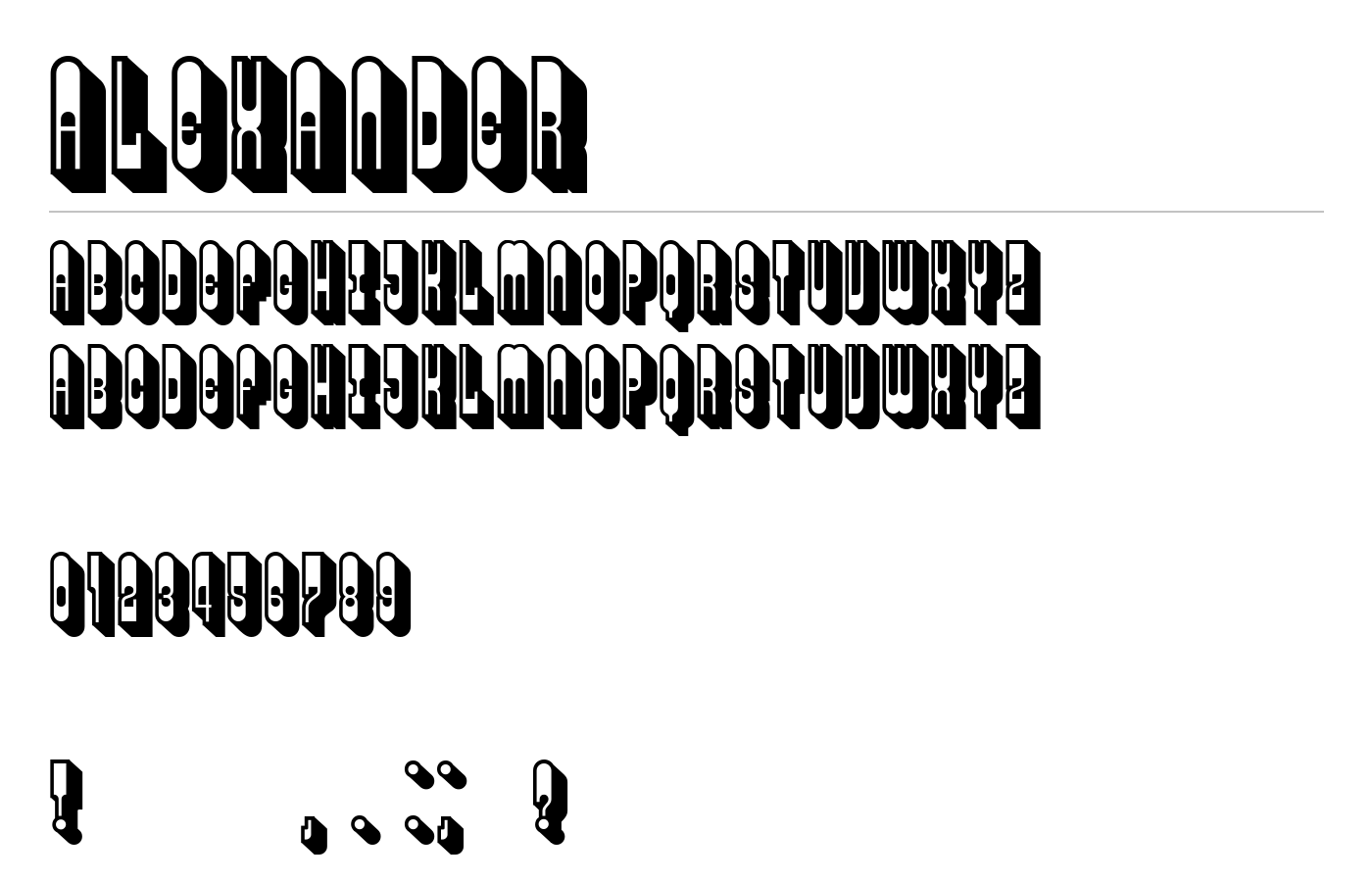
Alexander is a bold, condensed sans serif font with a strong geometric style and heavy shadow effect that adds a striking three-dimensional look. Its clean lines and uppercase-only characters give it a modern, impactful feel ideal for eye-catching headlines, posters, and branding that demands attention. This font works best in display settings where its unique shadow detail can enhance a bold, contemporary aesthetic.
Alexander Font
About Alexander Font
| Font family | Alexander Font |